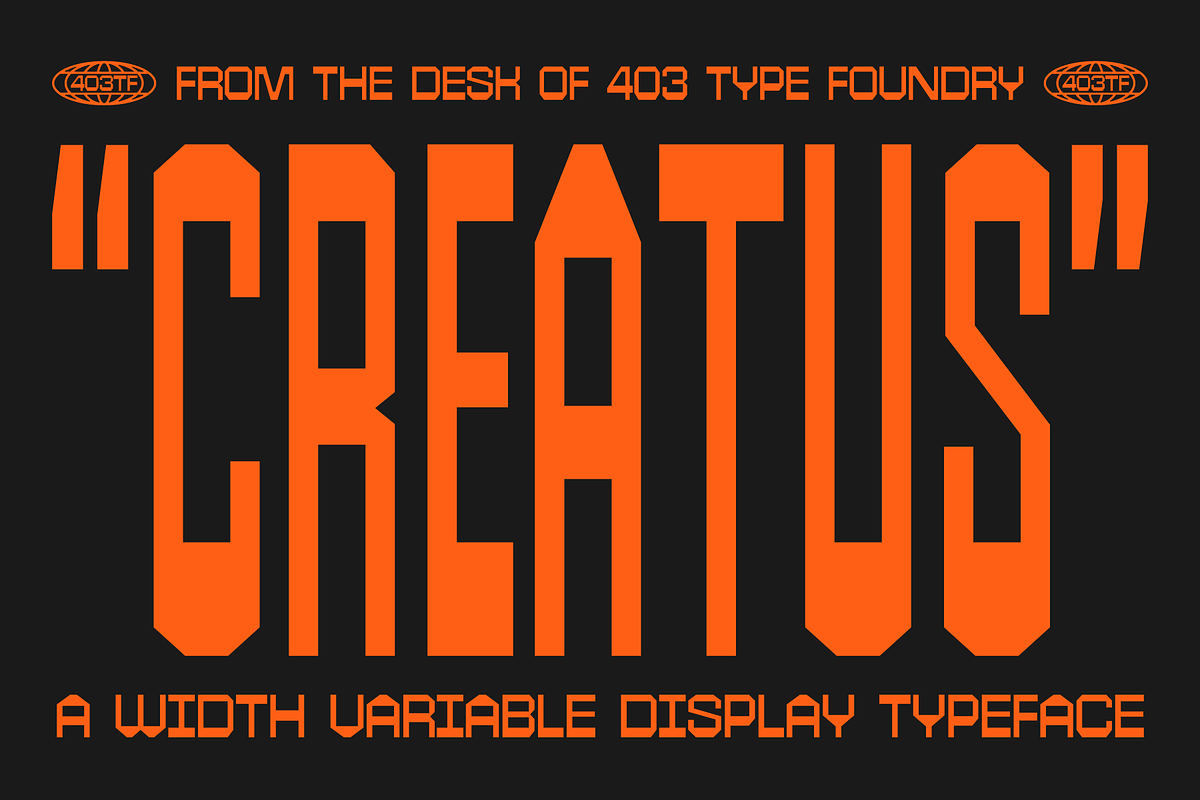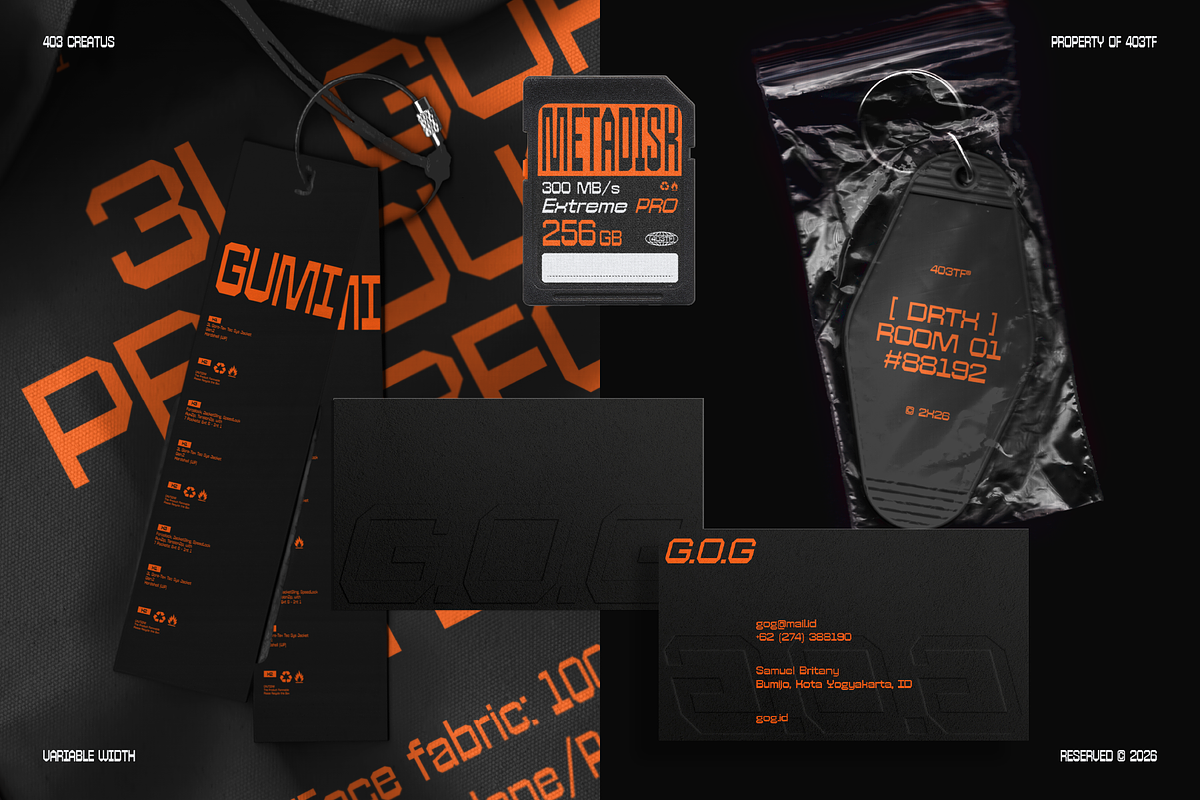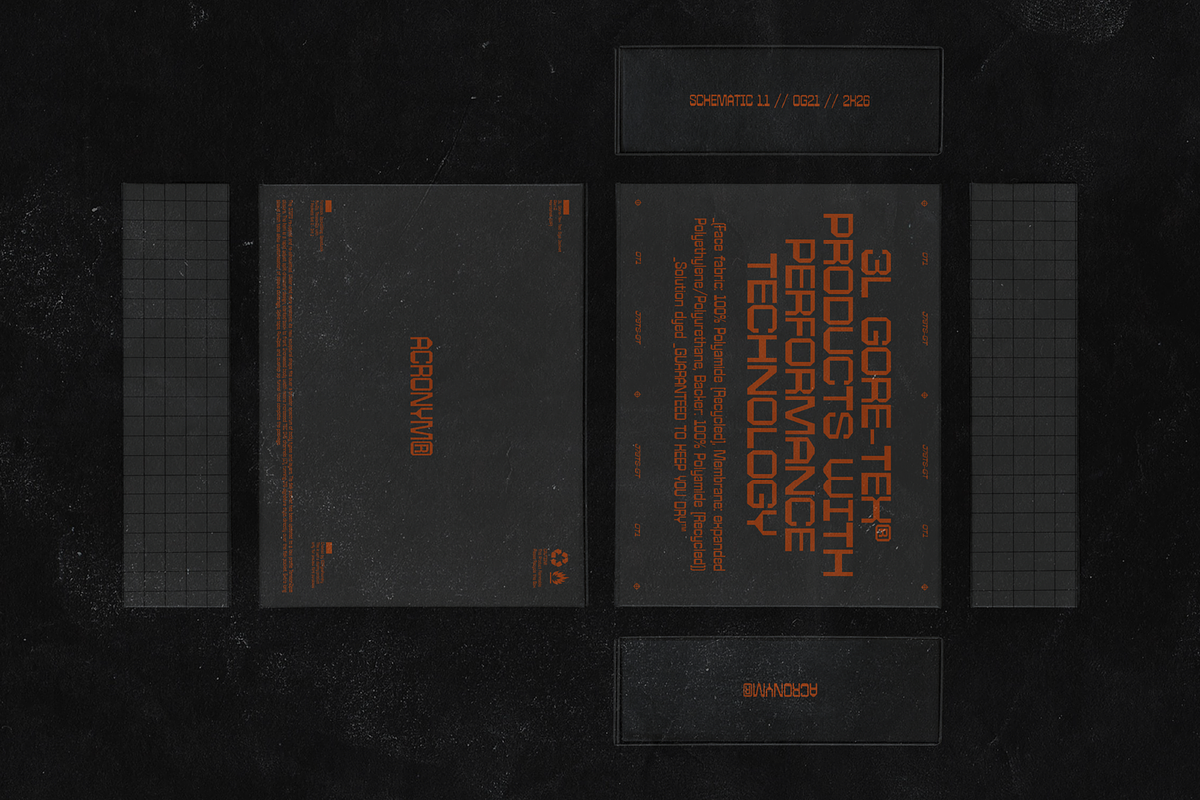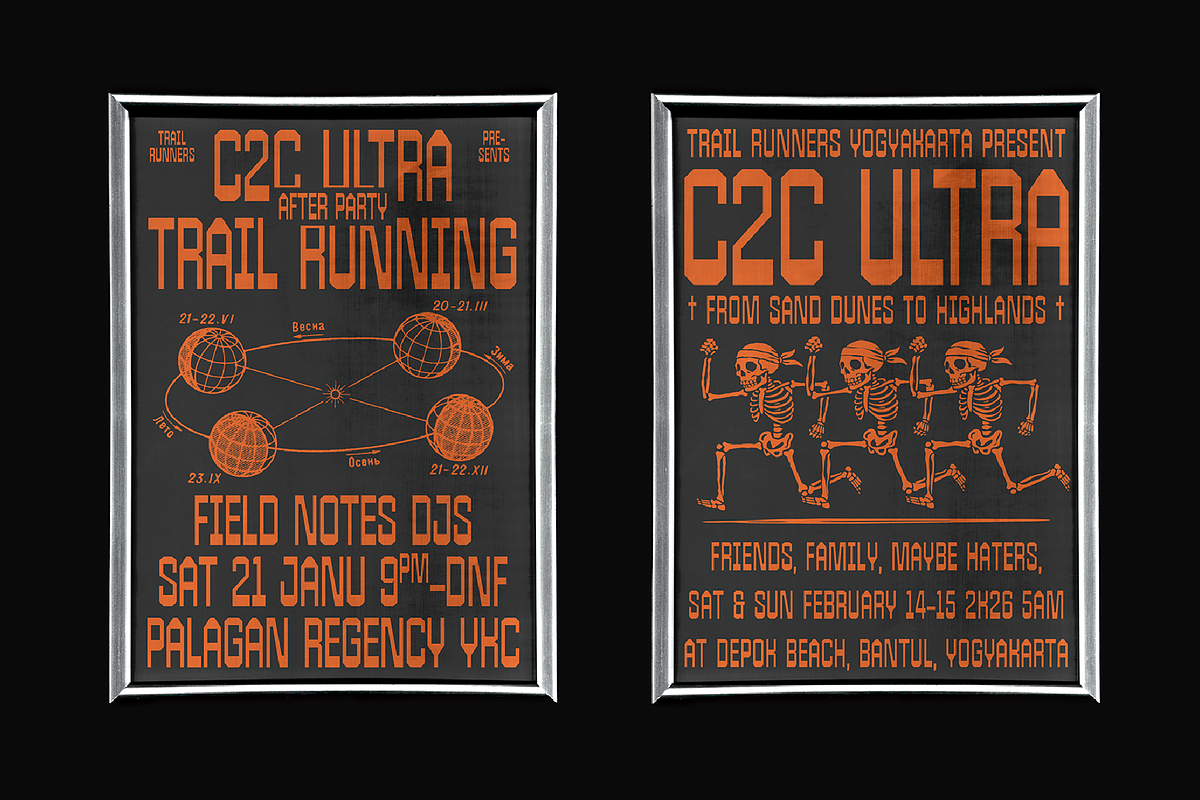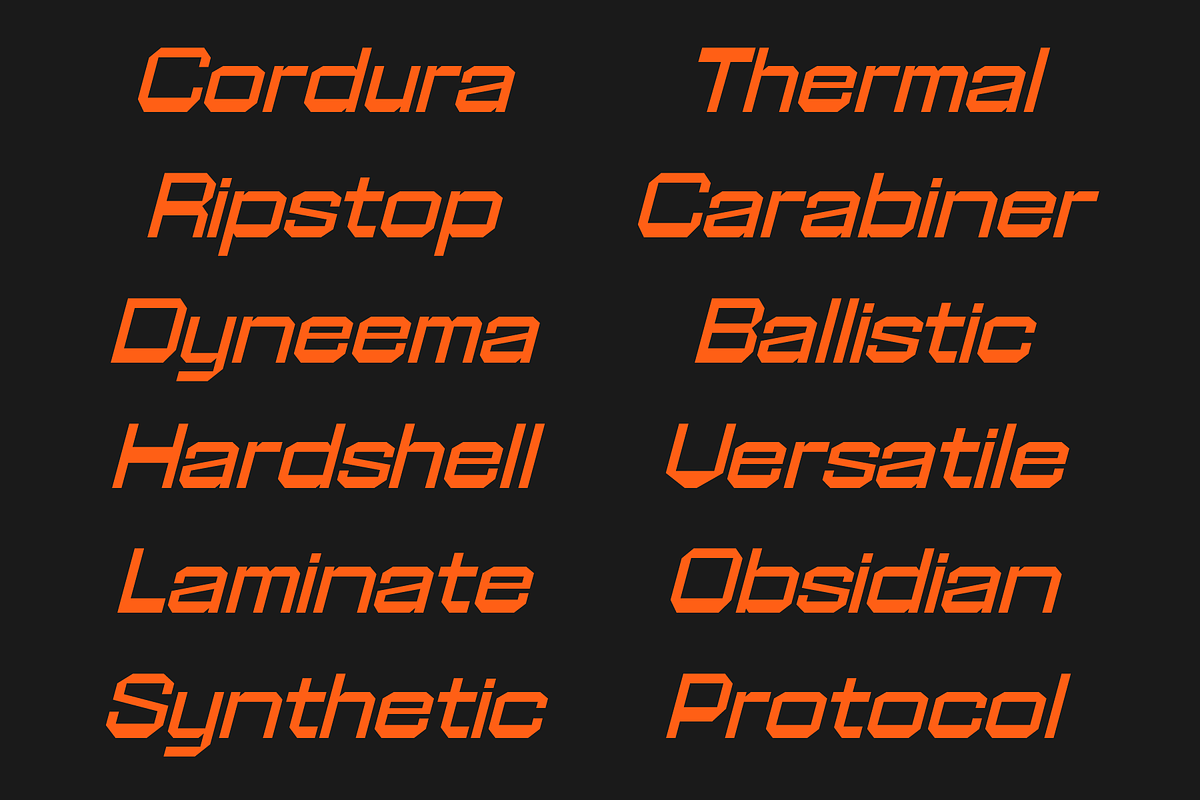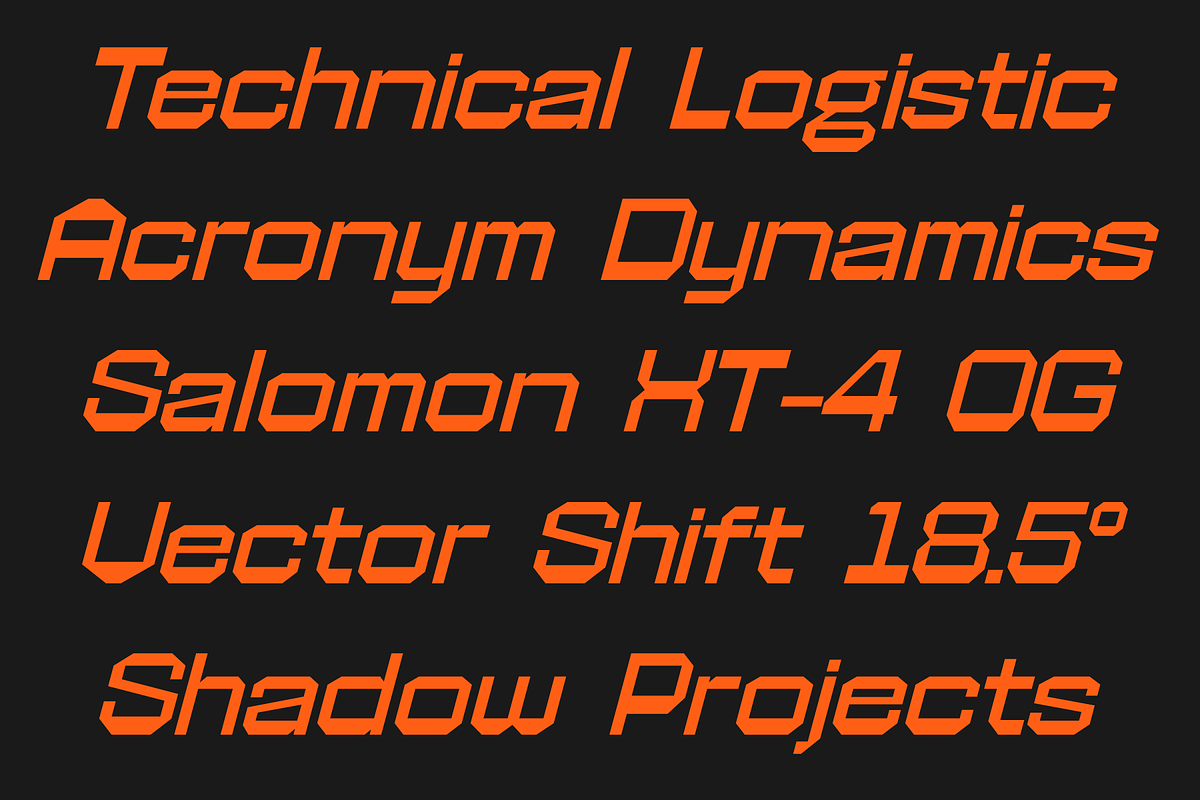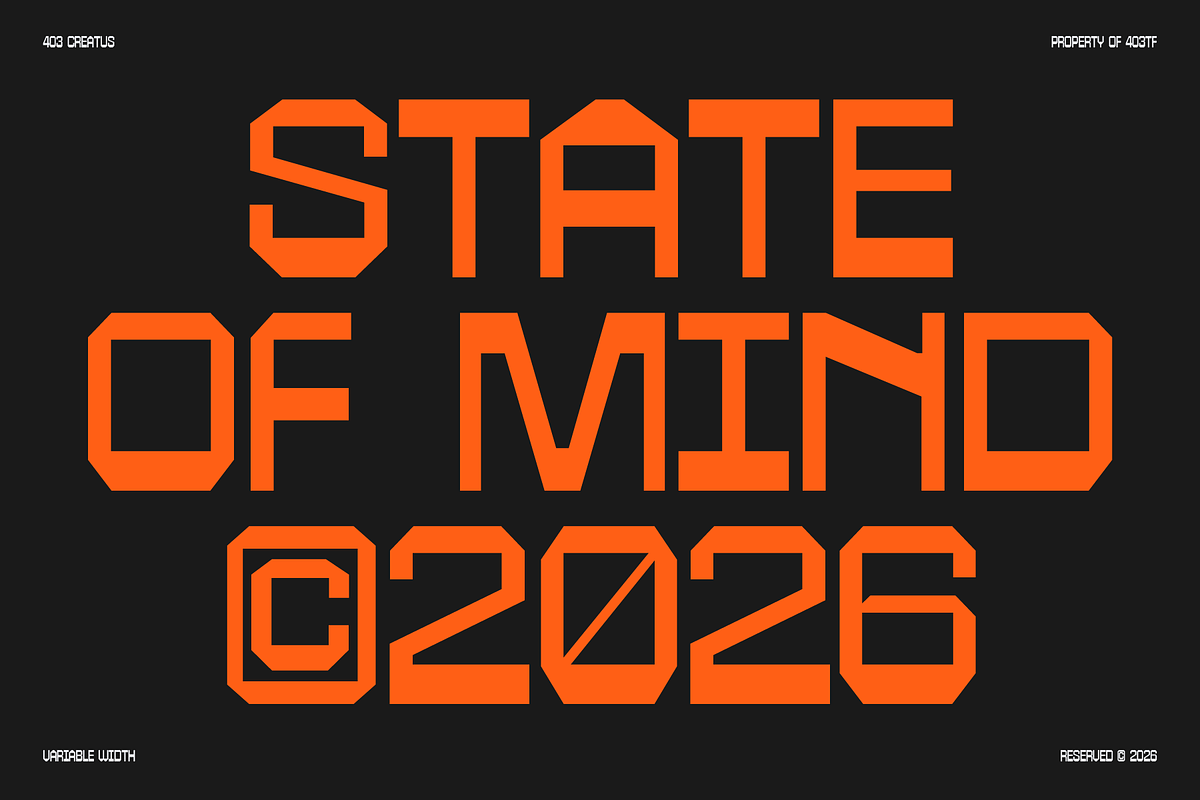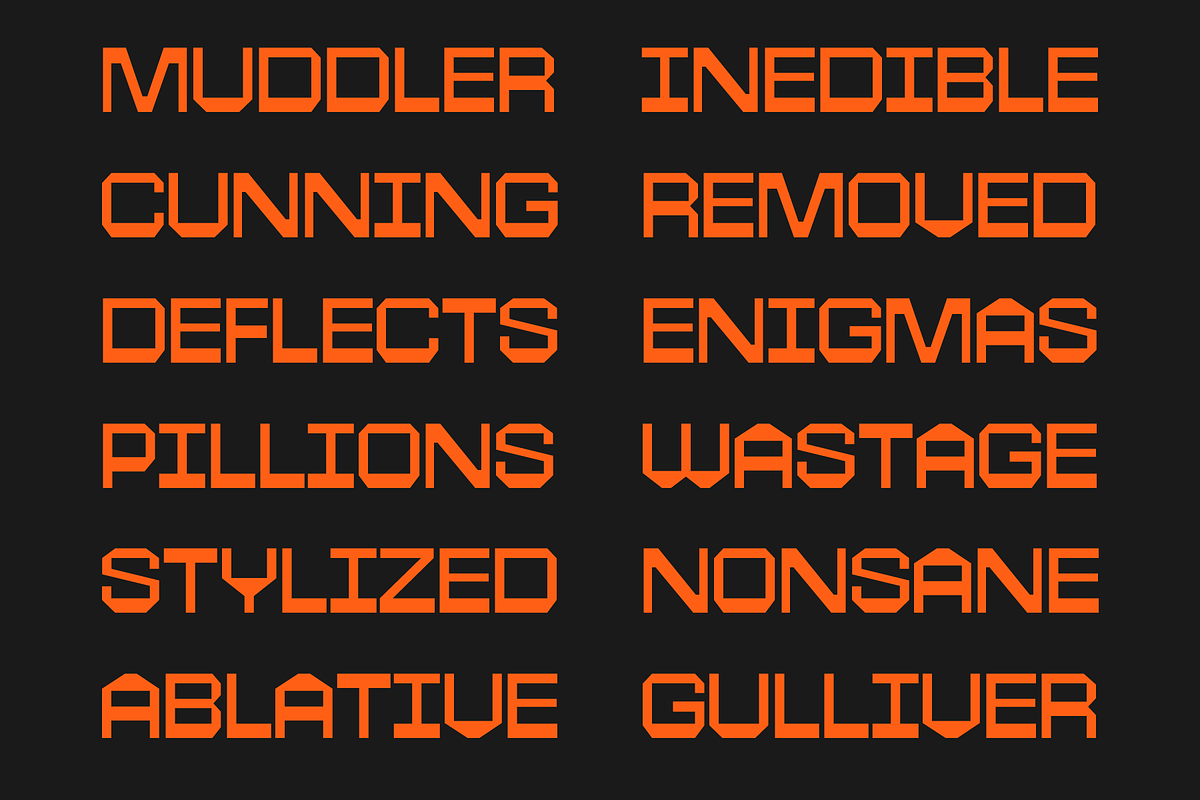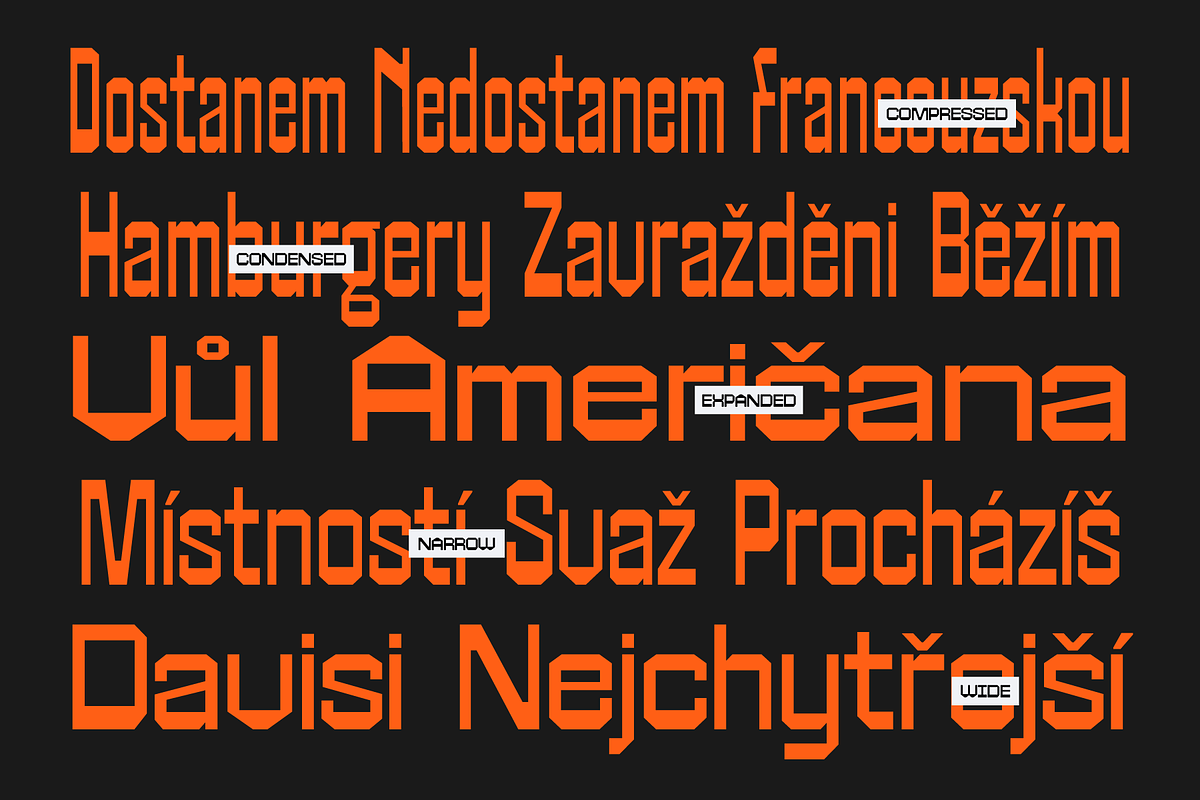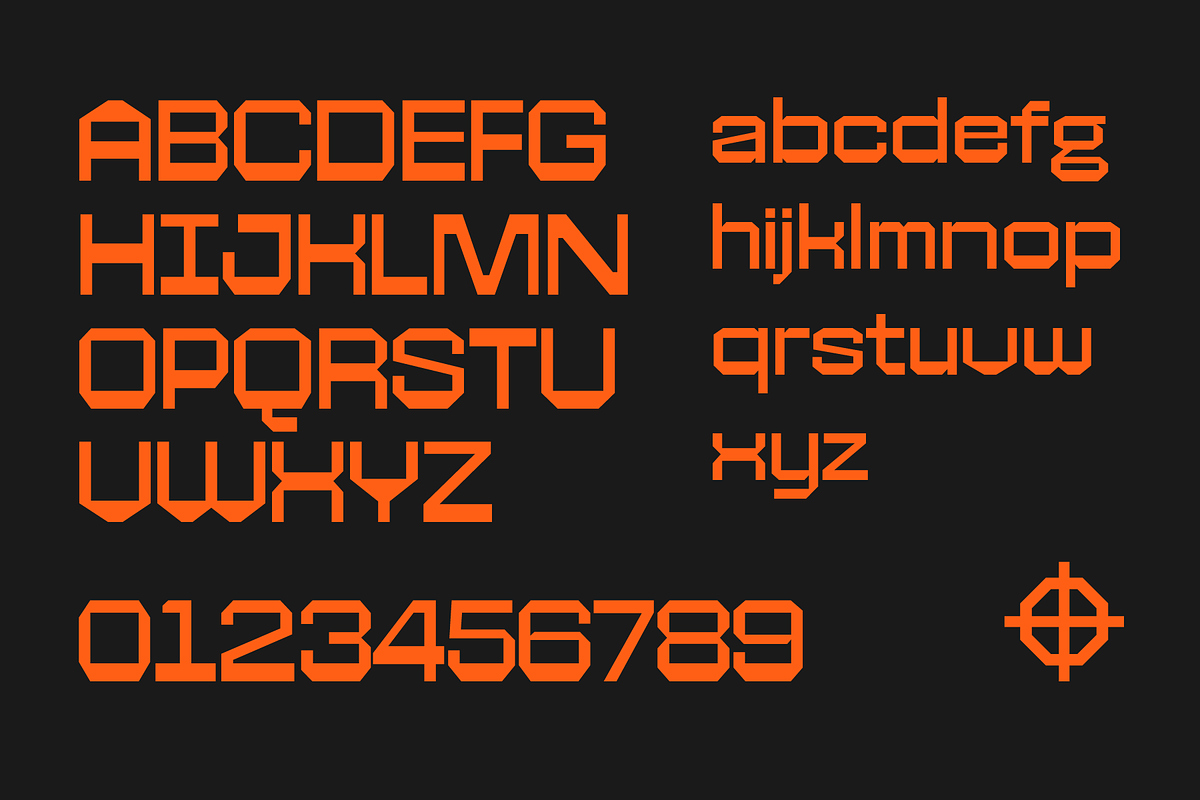
403 Creatus
403 Creatus is a powerhouse of structural versatility designed for those who refuse to let a layout dictate their vision. This width variable display typeface offers an uncompromising architectural edge, turning every headline into a statement of intent. Whether you need to squeeze a massive message into a tight column or let a single word dominate a cinematic landscape, 403 Creatus provides the elastic precision required for high impact modern design.
At its core, 403 Creatus is a study in geometric brutalism filtered through a contemporary tech wear lens. Its construction is defined by sharp, angular terminals and a rhythmic, mechanical cadence that feels both futuristic and grounded. The design philosophy centers on extreme adaptability, born from the need for a typeface that remains legible and commanding across a radical spectrum of horizontal scales. From the knife thin profiles of the compressed styles to the heavy, grounded stance of the wide variants, the font maintains a consistent visual DNA of strength and technical sophistication. It does not just fill space; it constructs it.
403 Creatus is the ultimate toolkit for branding professionals, trail run enthusiasts, and editorial designers who prioritize visual hierarchy. Its aggressive, technical personality makes it a natural fit for sports branding, outdoor performance gear, and brutalist web design. While its wide styles anchor luxury tech wear packaging and modern logos with undeniable weight, its narrower counterparts are engineered for the complex spatial demands of mobile interfaces and technical data displays. This is a font for creators who need their typography to embody the ruggedness of a trail run and the precision of modern logistics.
Feature Breakdown
- 18 Dynamic Styles
- Width Variable DNA
- Extensive Language Support
- Massive Glyph Library
- Advanced Diacritics
Redefine your design boundaries and experience the structural power of 403 Creatus, the ultimate variable solution for the modern age.